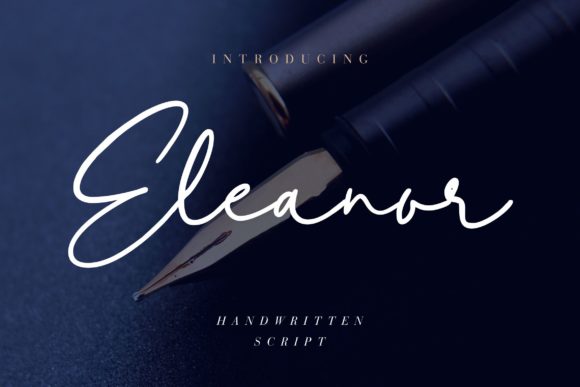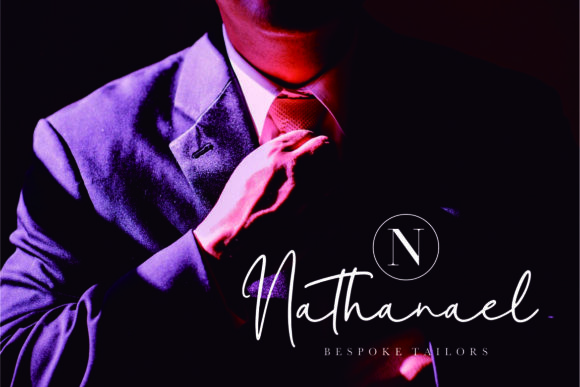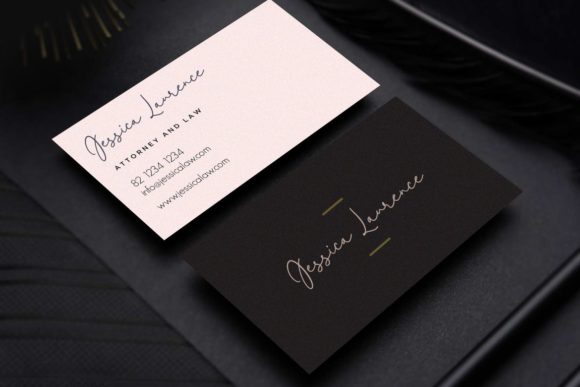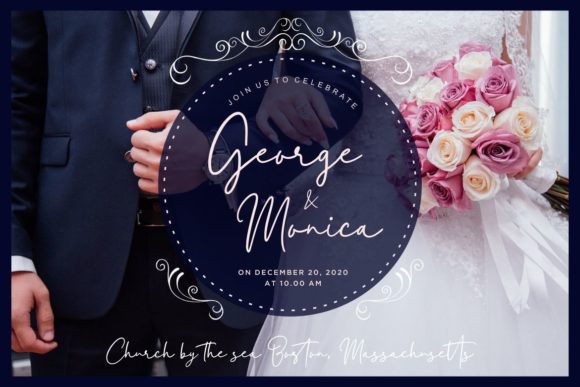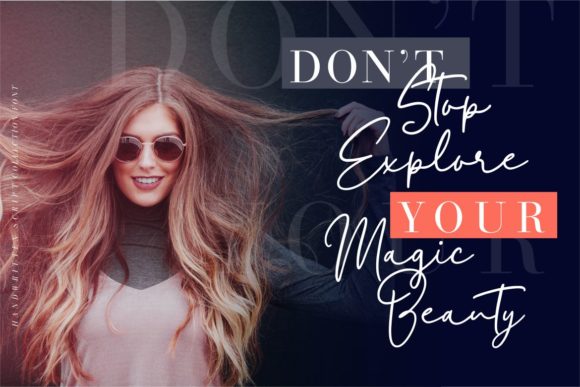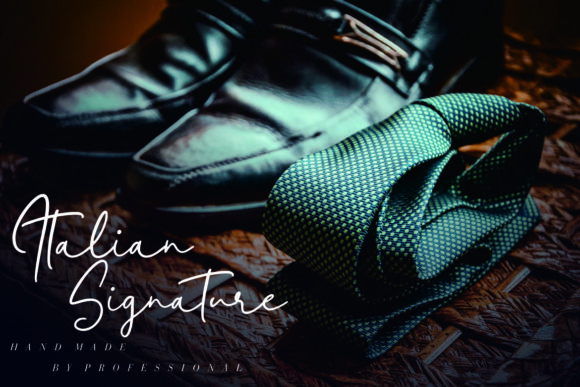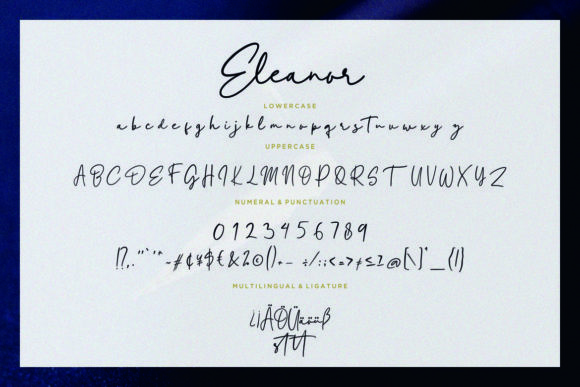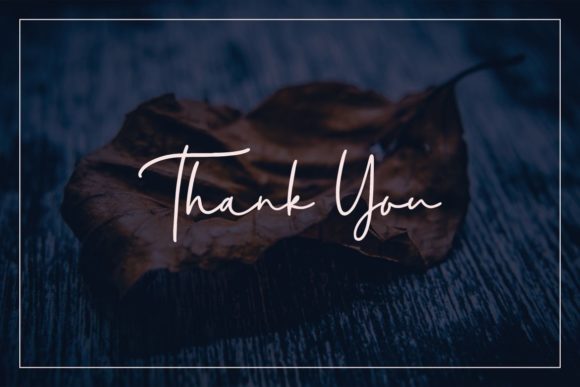
HomeScript FontsEleanor Font Script Fonts Eleanor Font FacebookXPinterestWhatsApp Eleanor Font Poster 2 Eleanor Font Poster 3 Eleanor Font Poster 4 Eleanor Font Poster 5 Eleanor Font Poster 6 Eleanor Font Poster 7 Eleanor Font Poster 8 About Eleanor Font With its contemporary elegance, Eleanor allows you to create stunning design projects. DOWNLOAD NOW People also explored Candy Christmas Font Nagara Font Cubite Font Chamos Font Boho Font Ballerine Font Goodday Font Party Sublimation Mug Mockup Cute Kidding Font 265 0 TagsEleanor Font Previous articleSapha FontNext articleLightning Crashes Font LEAVE A REPLY Cancel reply Comment: Please enter your comment! Name:* Please enter your name here Email:* You have entered an incorrect email address! Please enter your email address here Website: Save my name, email, and website in this browser for the next time I comment. Personal Use Free Glosery Personal Use Free Read more about this font Whitelight Personal Use Free Read more about this font Abuget Free Script Personal Use Free Read more about this font Predators Personal Use Free Read more about this font BLOG Using Fonts in Digital Marketing: Tips to Strengthen Your Brand Identity In the realm of digital marketing, every visual element plays a crucial role in shaping a brand's identity, and fonts are no exception. The... Transform Your Website: Elevate Your Typography with 7 Best Web Font Generators Free vs Paid Fonts: Why Investing in Premium Fonts Is Worth It Free Fonts Risk: Why Free Fonts Can Be Dangerous for Designers